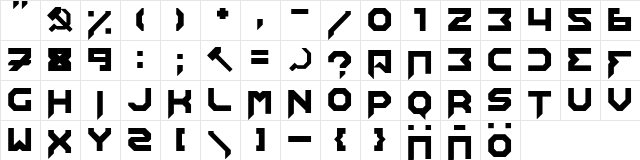
Edistys Regular Free Font
Edistys Regular
Design Context for Edistys
Edistys is a composed and adaptable typeface that performs quietly and consistently across a wide range of design contexts.